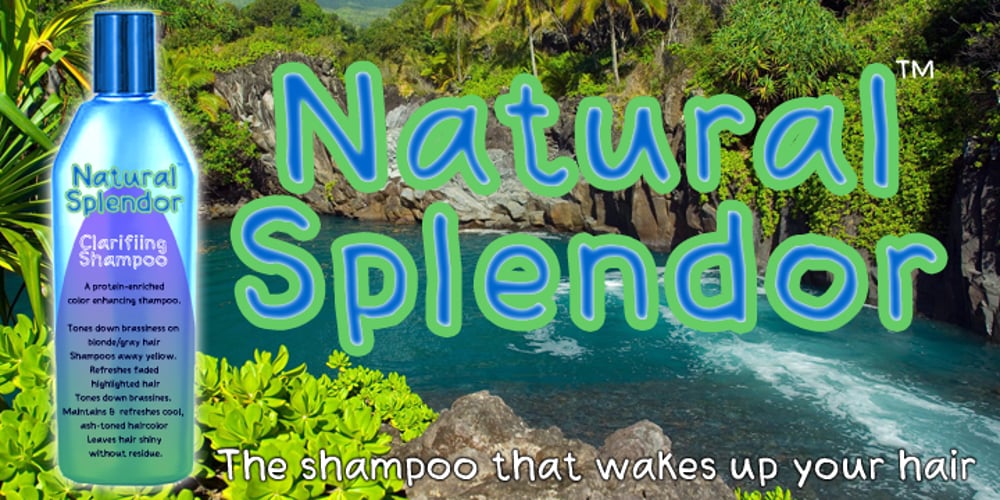
Bloop
Bloop font
Bloop Font Family was designed by Robert Petrick and published by Robert Petrick. Bloop contains 3 styles and family package options. Bloop is a versatile bold new cartoon font that is great for the web, video, print headlines or product logos. It is a hot, contemporary, very readable design with language character function.